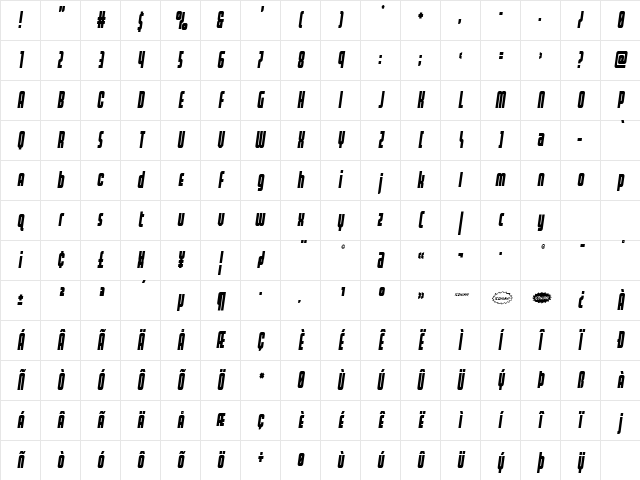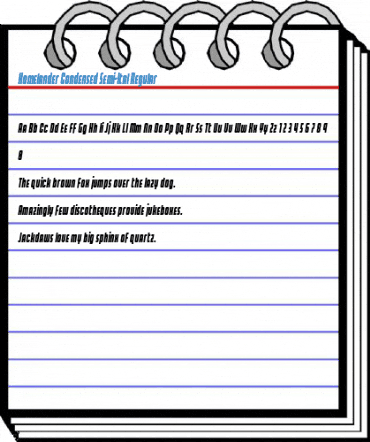
Complete Homelander Condensed Semi-Ital Regular glyph index. Displaying only characters natively supported by Homelander Condensed Semi-Ital Regular font.
Homelander Condensed Semi-Ital is a composed and adaptable typeface that performs quietly and consistently across a wide range of design contexts. Its narrow stance lets it pack a punch even in space-constrained designs.